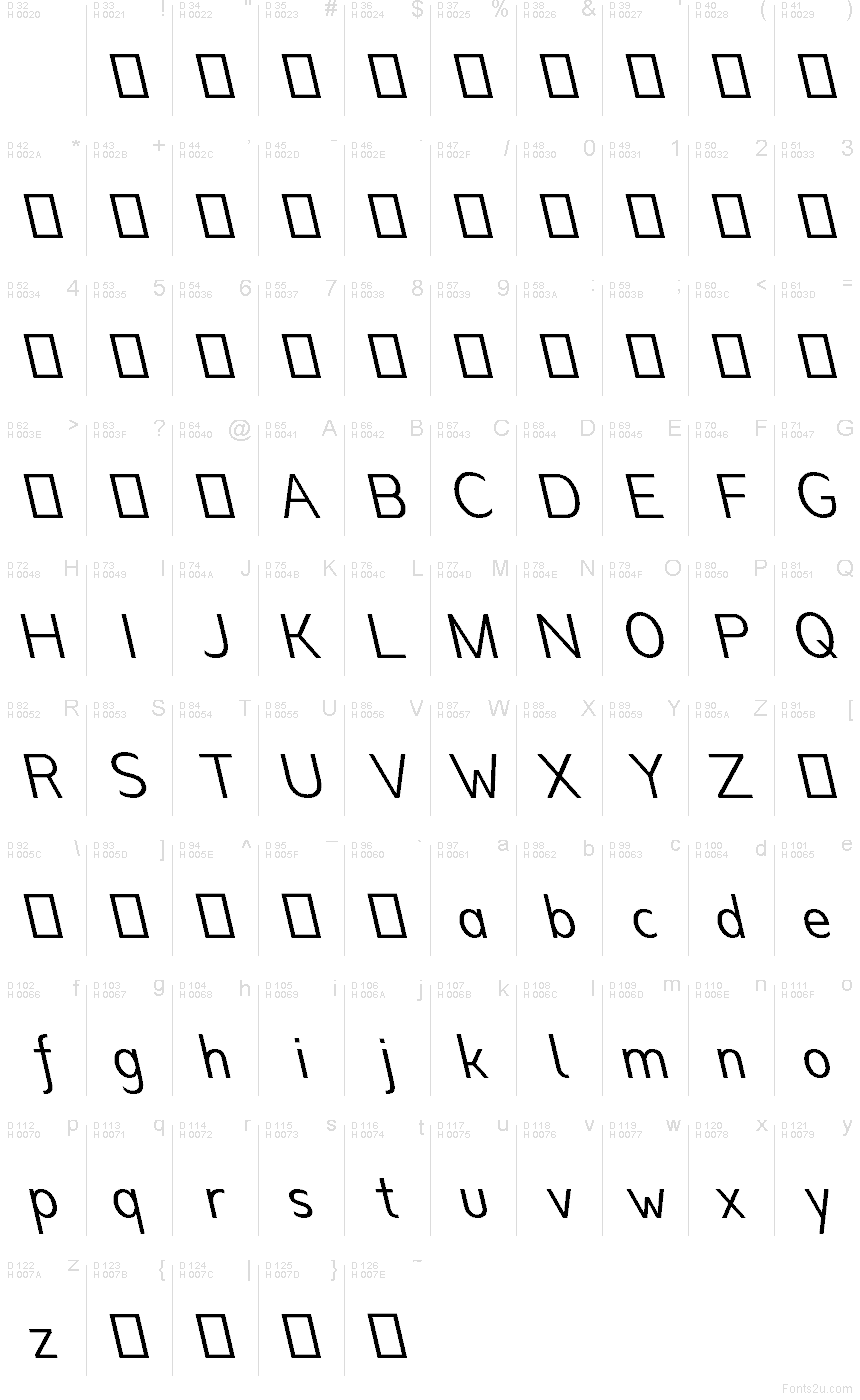
Anoda Light Backslant Trial
Anoda Light Backslant font by Imaad Phoplunker is a free sans serif typeface with a rare, laid‑back reverse slant that instantly shifts the mood. Its light weight, clean strokes, and gentle backward lean feel like handwriting caught mid-thought—casual, but still crisp and legible. The Anoda family’s geometry keeps everything grounded, so even with the quirky tilt, words stay tidy and easy to scan.
Using Anoda Light Backslant, headlines and short phrases seem to relax on the page, making this free font a natural fit for lifestyle branding, cafés, personal blogs, zines, packaging, and expressive social graphics. It works beautifully at larger sizes where the slant can breathe; pair it with a neutral upright sans for body text to highlight that offbeat, conversational energy.
Anoda uses single-storey glyph designs for the "a" and "g" characters. It comes in four weights, each with italic and backslant variants. The family name is taken from a genus of plants.